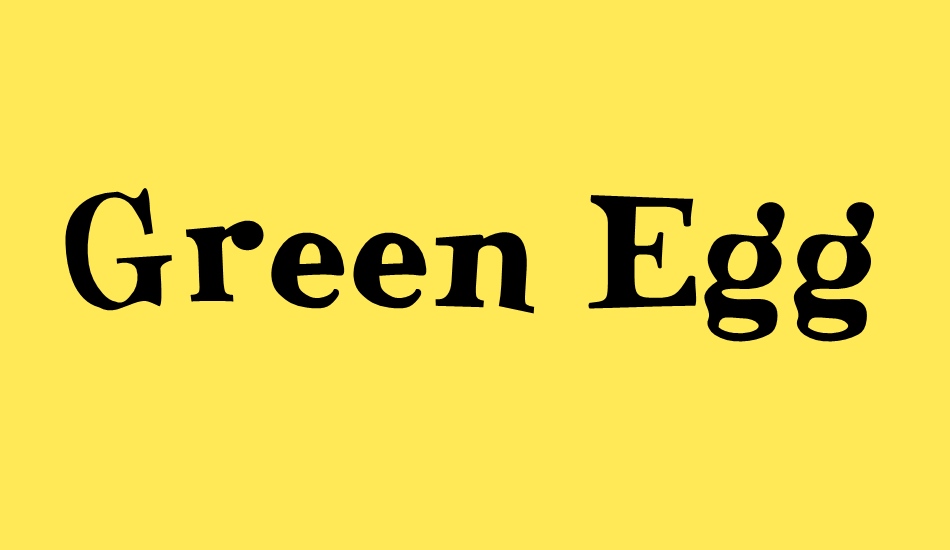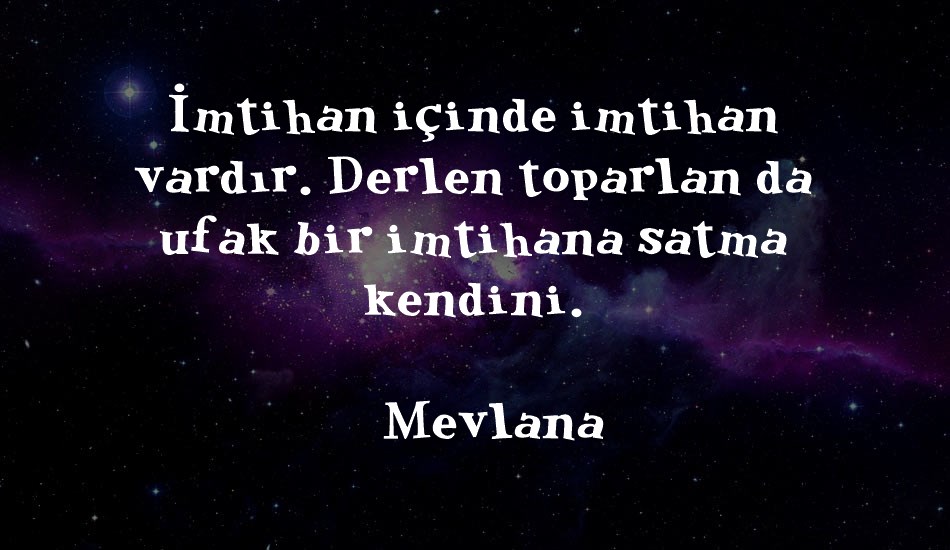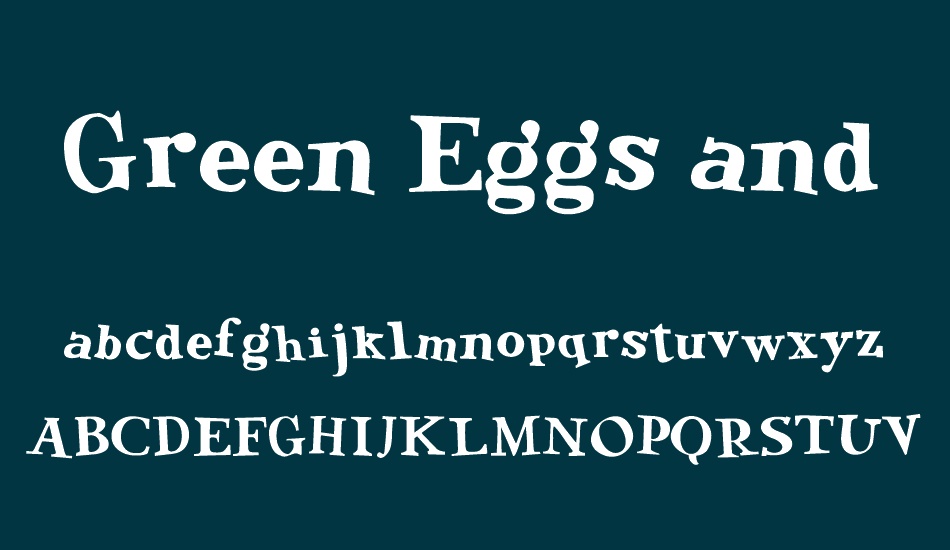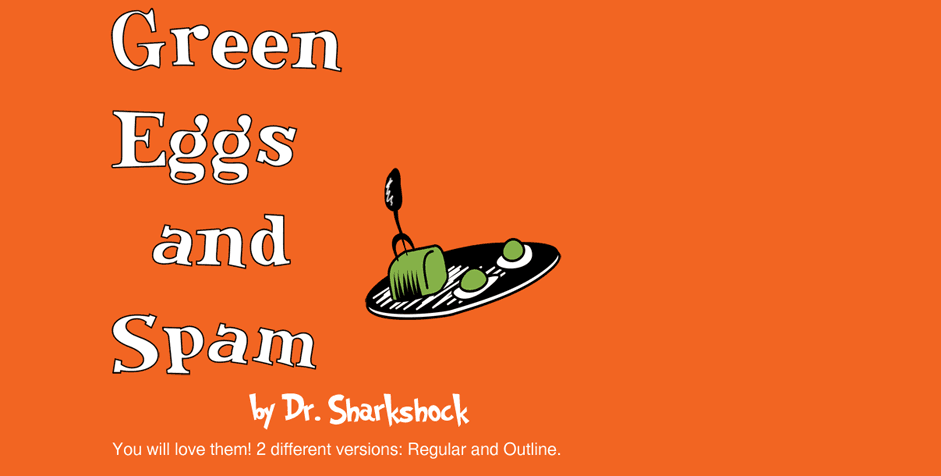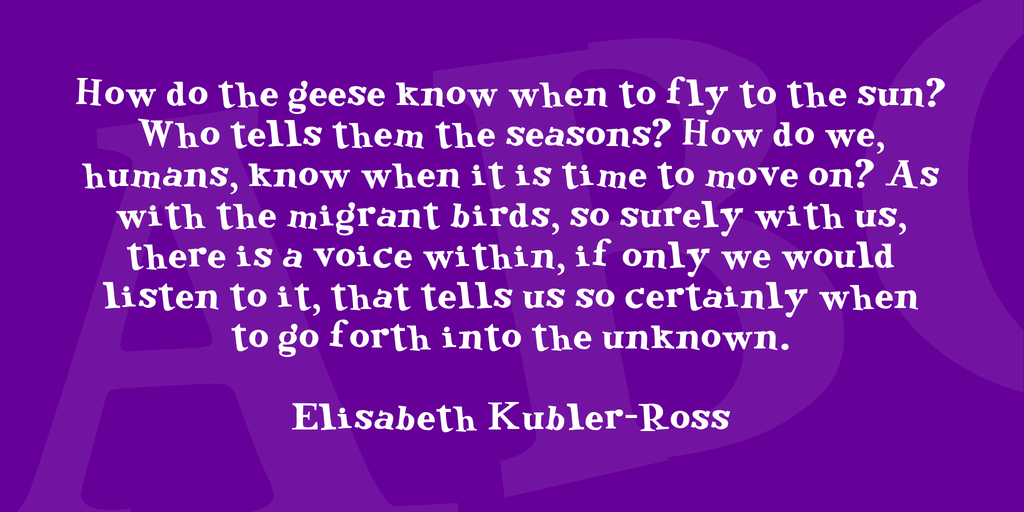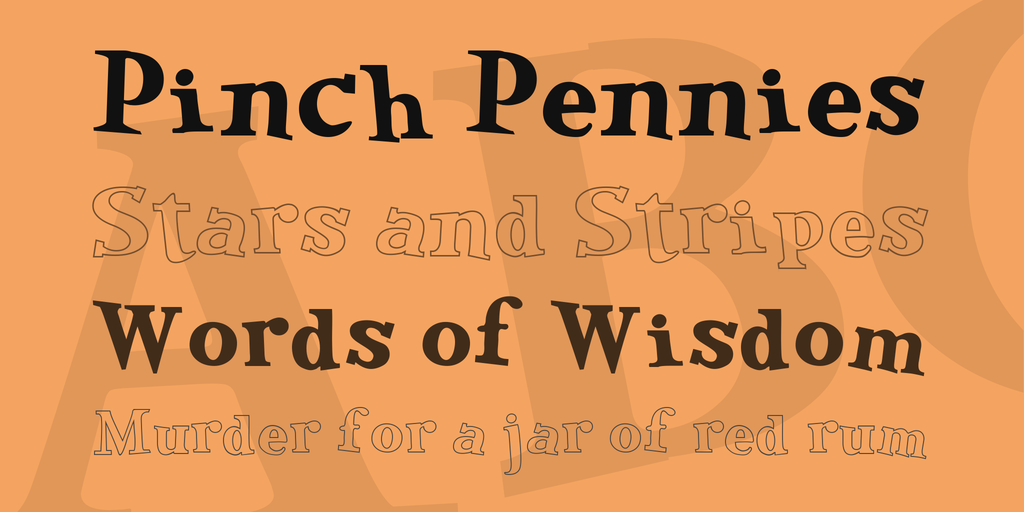
Green Eggs and Spam font
Try it! You will see! A font that's fun for you and me. Boys and Girls, Ladies and Gentlemen i give you Green Eggs and Spam; A playful typeface that will take you back to your childhood
before you can say "Sam I Am." This typeface contains accents, European characters, and kerning. Perfect for scrapbooking and children's books. Green Eggs and Spam comes in two different